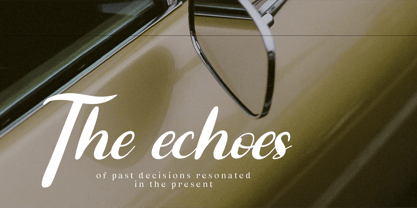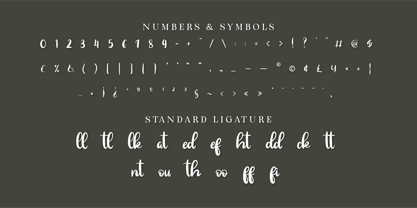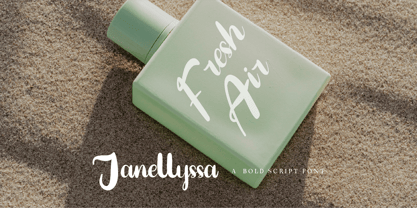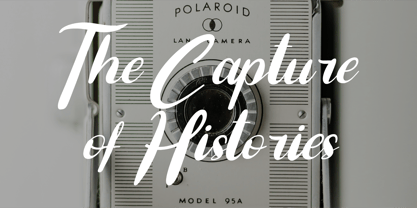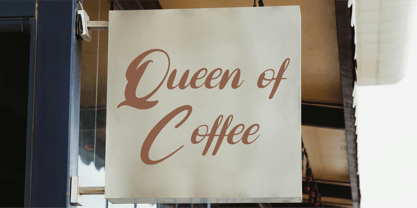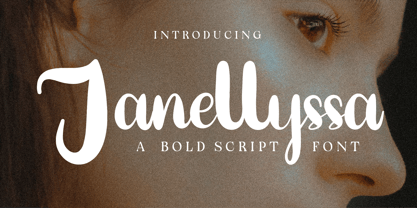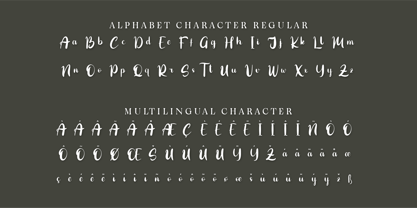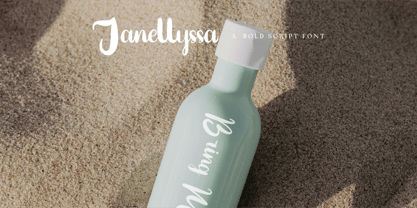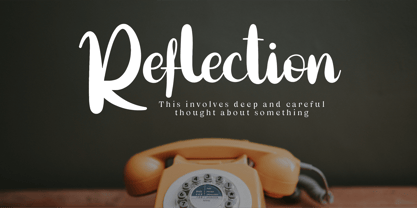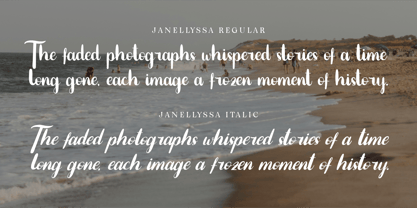
Janellyssa – A Bold & Elegant Script Font
Unleash the beauty of handwritten artistry with Janellyssa, a bold script font that combines graceful curves with confident strokes. Designed to be expressive yet sophisticated, this typeface is perfect for branding, invitations, packaging, social media, and editorial designs.
With its smooth, flowing letterforms and dynamic presence, Janellyssa strikes the perfect balance between boldness and femininity. Whether you're designing for fashion, beauty, lifestyle, or creative projects, this font radiates elegance and personality.
Why Choose Janellyssa?
✨ Bold & Beautiful: A script font with thick, flowing strokes for high impact.
💄 Perfect for Stylish Branding: Ideal for beauty, fashion, and upscale businesses.
🎨 Versatile & Expressive: Works well for logos, invitations, quotes, and more.
🖋 Natural Handwritten Feel: Designed to replicate elegant, effortless handwriting.
- Standard Character A-Z, a-z, 0-9, Punctuation & symbols
- Regular and Italic